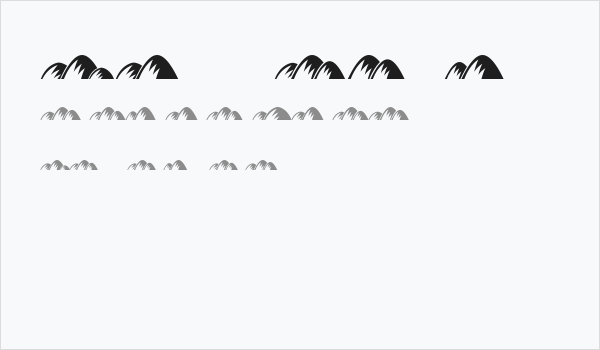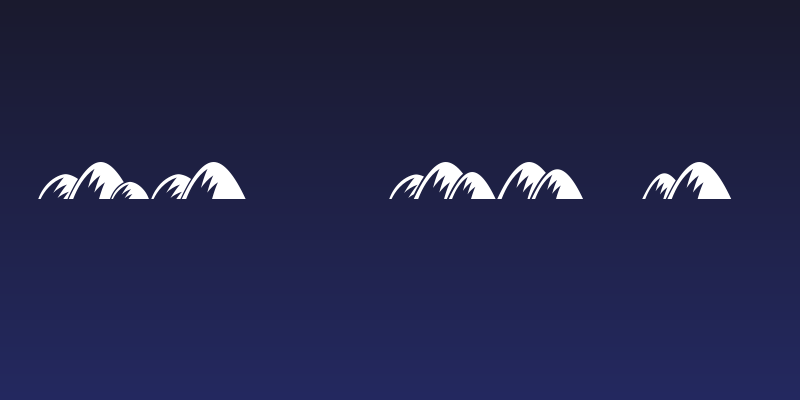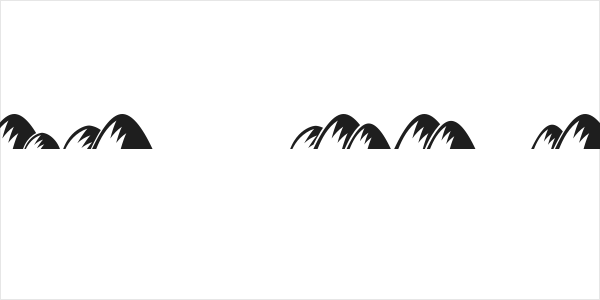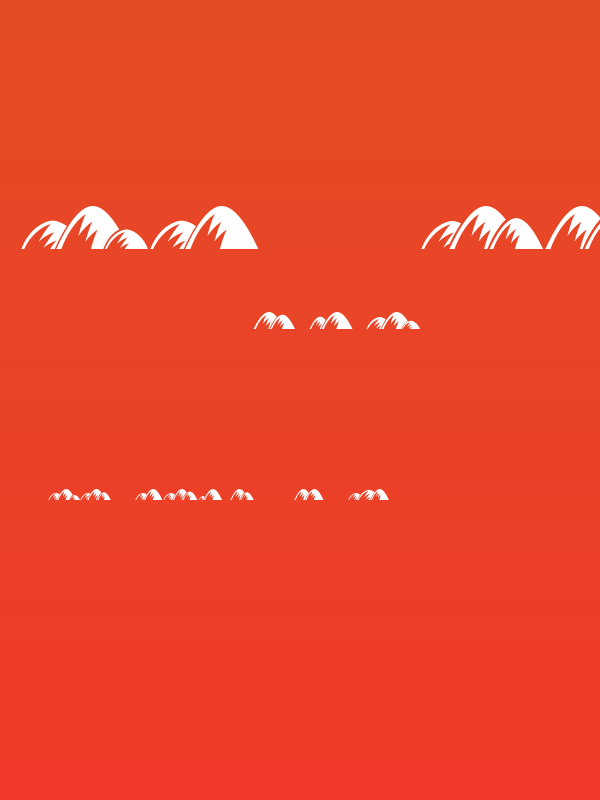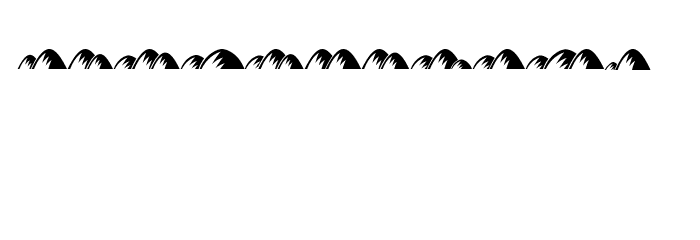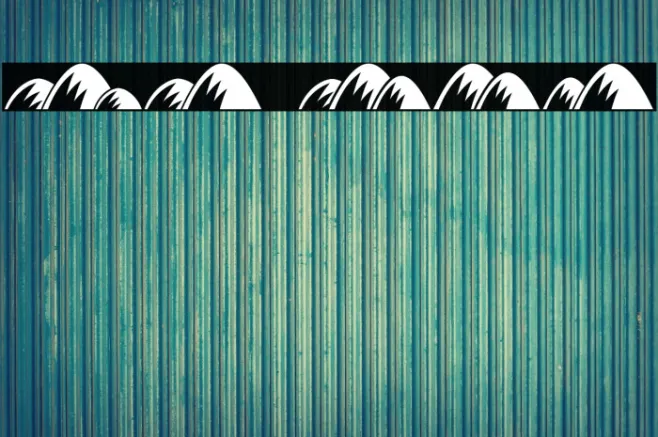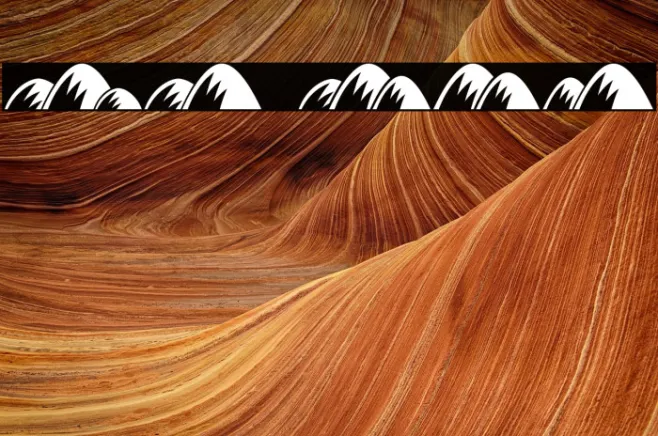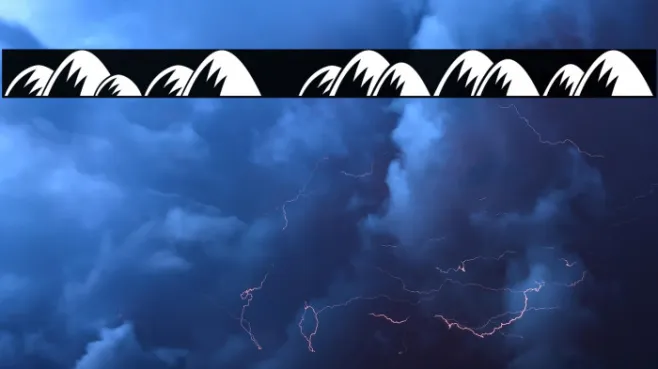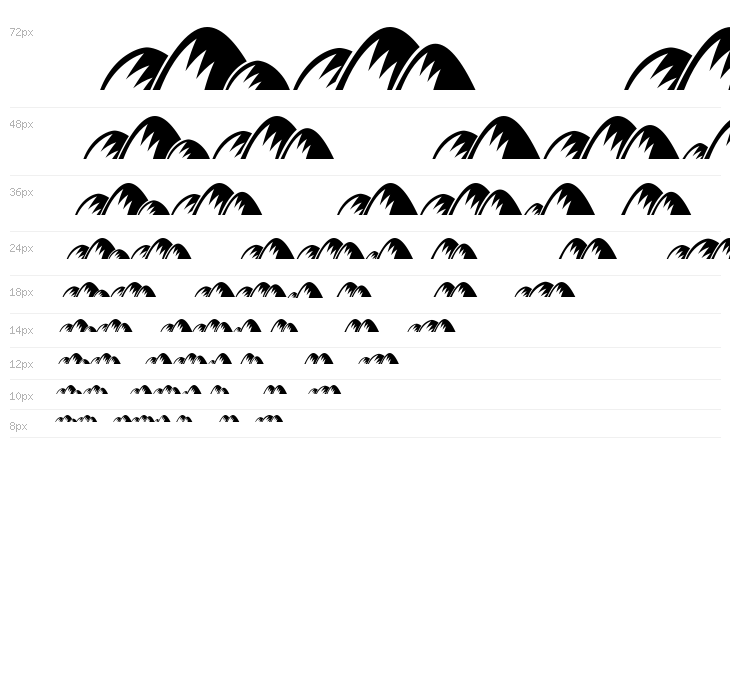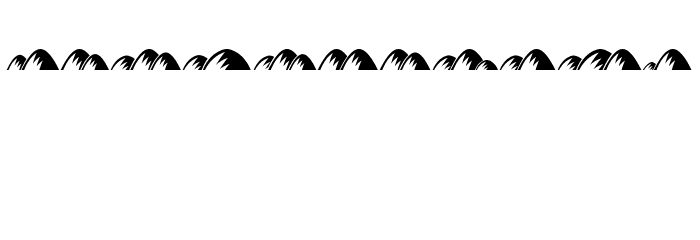
Hills Regular Font
Hills Regular Description
A decorative font consisting of stylized hill or mountain silhouettes, repeated to form a border or pattern rather than traditional alphanumeric characters.
| Overall Style | Decorative, Playful, Nature-inspired |
| Use Case | Borders, Dividers, Themed graphics |
| Proposed Projects | Nature-themed invitations, children's book borders, outdoor event posters, decorative dividers. |